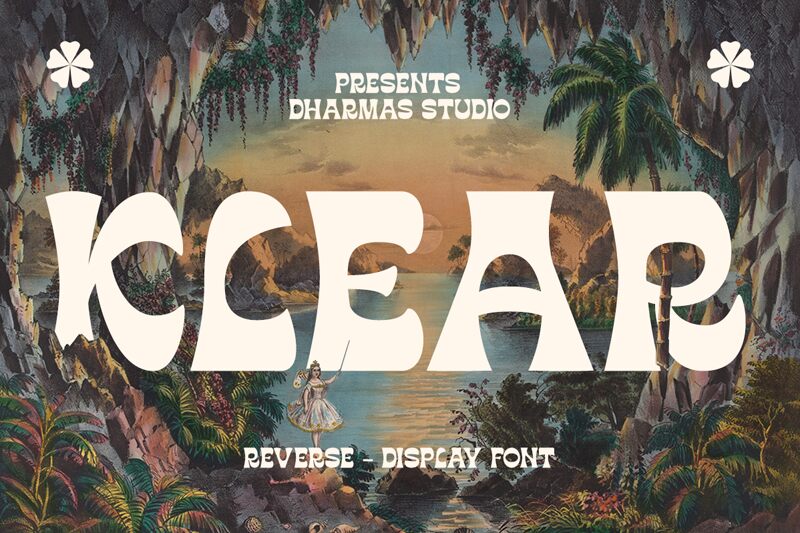
Klear DEMO Regular
Klear by Dharmas Studio is a display font that exudes confidence with its groovy style and bold presence. The letters dance with a playful rhythm, reminiscent of the free-spirited designs of the '60s and '70s. Its curves are smooth and flowing, creating a visual melody that's both appealing and memorable.
This font's boldness makes it perfect for headlines, posters, or any project that demands attention with retro flair. The distinctiveness of Klear lends itself to creative branding, event announcements, and even apparel design where a touch of vintage groove is desired. Embrace the charm of Klear when your design needs to make a statement that's both assertive and delightfully nostalgic.